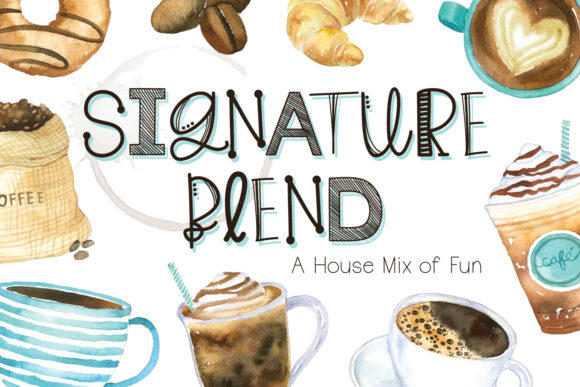
Signature Blend Font Review for Creative Campaigns
Using Signature Blend for Instagram Reels and Social Media Graphics
When I was tasked with refreshing a lifestyle brand’s Instagram feed last quarter, incorporating Signature Blend into our Script Handwritten typography system completely transformed the visual engagement of our Fonts strategy. As a social media strategist, I am constantly looking for typefaces that stop the scroll without sacrificing legibility on small mobile screens, and this particular font delivered exactly that balance of quirky personality and functional clarity. We used it specifically for Reel covers and carousel headlines where the goal was to feel authentic and human rather than overly polished or corporate.
The unique character of Signature Blend shines brightest when applied to short, punchy phrases in social media graphics. During our campaign testing, we found that using this display font for three-to-five-word hooks resulted in higher save rates compared to standard sans serif headers. The handwritten aesthetic signals to the audience that the content is personal and curated, which is essential for building trust in digital spaces. However, because the letterforms are distinctively quirky, I recommend keeping ample negative space around the text to prevent visual clutter in fast-scrolling feeds. It works exceptionally well as an overlay on lifestyle photography or textured backgrounds, but ensure you use high-contrast colors to maintain accessibility standards across different device brightness settings.
Optimizing Signature Blend Readability for Mobile Previews and Digital Ads
One critical aspect of integrating Signature Blend into paid ad campaigns is understanding how this Script Handwritten style renders at smaller sizes within various Fonts hierarchies. While reviewing performance data for a seasonal sale promotion, I noticed that while the font grabbed attention effectively in square posts, it required careful scaling for vertical story ads and banner placements. The intricate details that make Signature Blend so charming can sometimes get lost if the point size drops too low, potentially hurting click-through rates if the offer isn't instantly decipherable.
To mitigate this in real campaign workflows, I established a minimum size threshold for this typeface in our design templates. For digital ads and email headers, Signature Blend should strictly serve as the primary hook or emotional trigger, never as body copy. Pairing it with a clean, geometric sans serif for the actual offer details created a perfect visual rhythm; the script drew the eye in, and the supporting font delivered the information. This strategic pairing is vital for conversion-focused assets where message clarity cannot be compromised for style. Always preview your ad creatives on an actual phone screen before launching, as desktop monitors often flatter intricate fonts more than mobile displays do.
Signature Blend Typography for YouTube Thumbnails and Video Content
Creating clickable video packaging requires bold choices, and applying Signature Blend as a headline element in Script Handwritten categories has proven effective for distinguishing our video Fonts from competitors in saturated niches. When designing thumbnails for a new educational series, we needed a typeface that conveyed approachability and creativity without looking messy at 1280x720 resolution. Signature Blend provided that necessary "human touch" that suggests a creator-led experience rather than a generic tutorial, helping to establish a consistent visual identity across the channel.
In practical application, this font performs best on YouTube when treated as a graphical element rather than just text. Because of its quirky baseline and varying stroke widths, I often adjust the tracking slightly tighter or add a subtle drop shadow to lift it off busy video backgrounds. It is particularly effective for emotive titles like "My Honest Review," "Behind the Scenes," or "Creative Process," where the audience expects a personal narrative. Avoid using it for technical specs or numbered lists in thumbnails; reserve those for highly legible block letters. Instead, let Signature Blend carry the emotional weight of the title while maintaining a clear focal point that remains readable even when the thumbnail is shrunk to sidebar size.
Pairing Signature Blend with Modern Fonts for Brand Identity Systems
Building a cohesive brand kit involves selecting complementary typefaces, and Signature Blend serves as an excellent accent piece within a broader Script Handwritten and modern Fonts ecosystem. During a recent rebrand for an artisanal e-commerce shop, we positioned this font as the "voice" of the brand, using it exclusively for signature sign-offs, limited edition labels, and seasonal announcements. Its unique quirks prevented the brand identity from feeling sterile, adding a layer of bespoke craftsmanship that resonated with their target demographic.
Successful font pairing with Signature Blend relies on contrast. Since it already possesses significant personality, avoid combining it with other decorative or distressed scripts. Instead, anchor it with:
This versatility makes it a valuable asset for designers who need one font that can adapt to packaging, web banners, and thank-you cards without dominating the entire visual system.